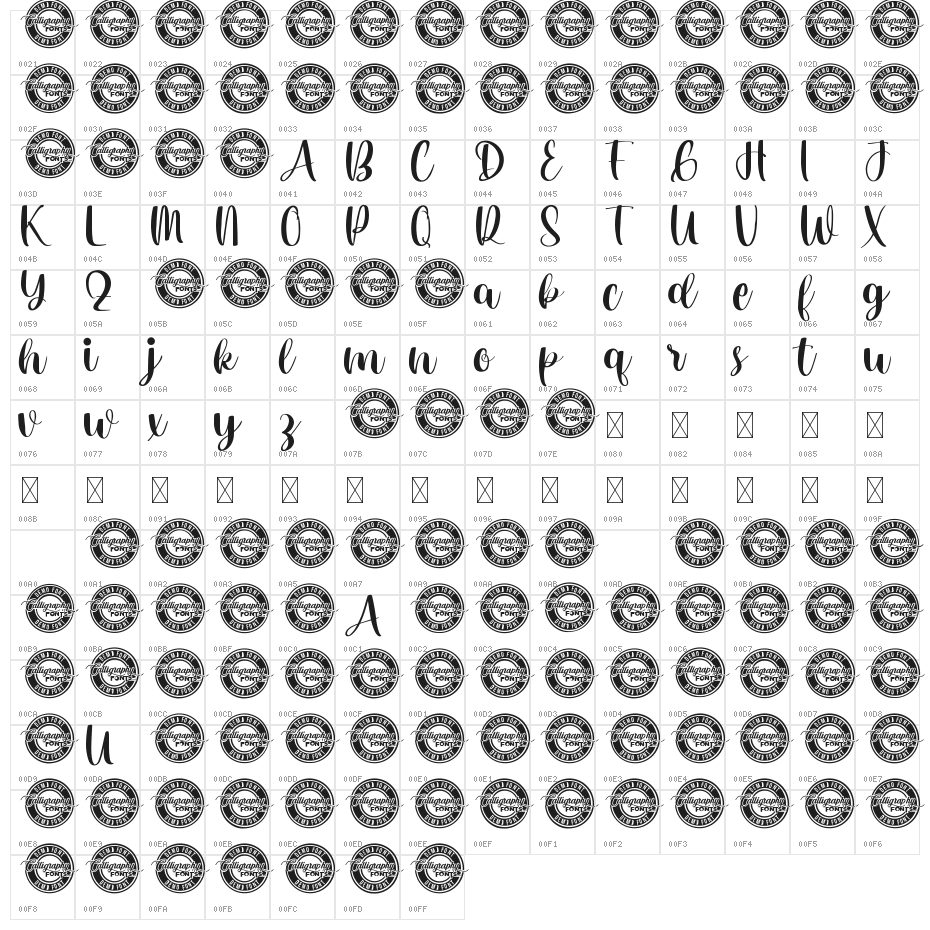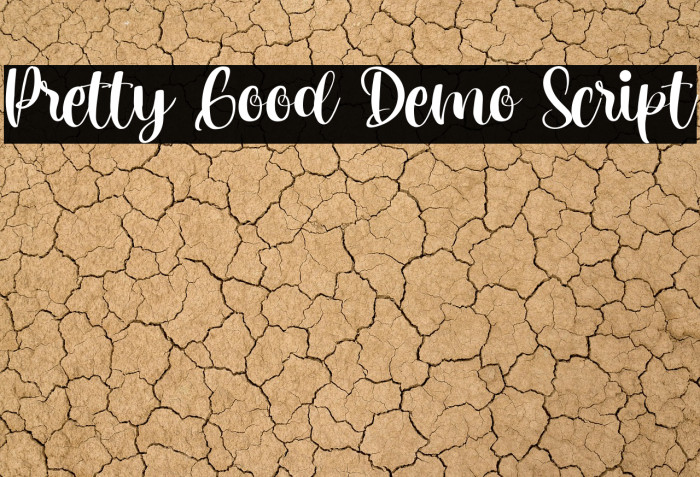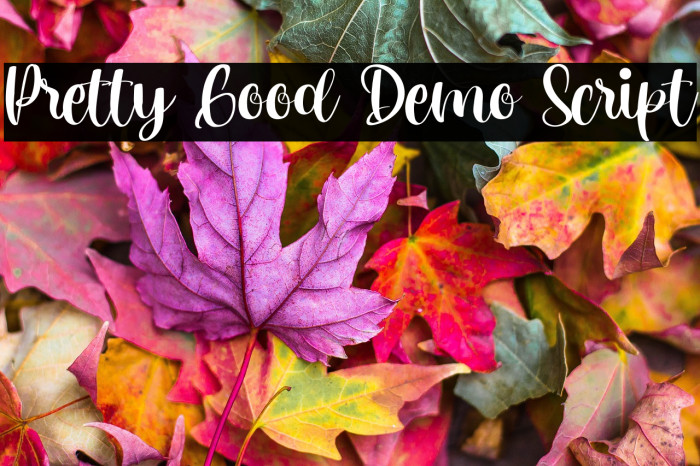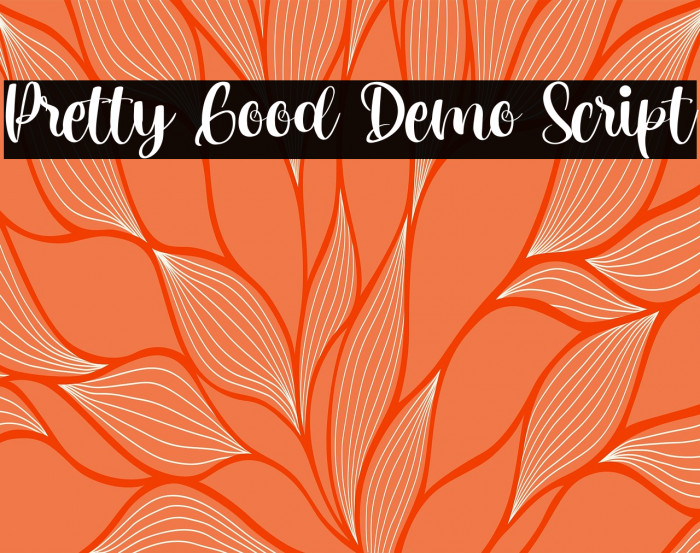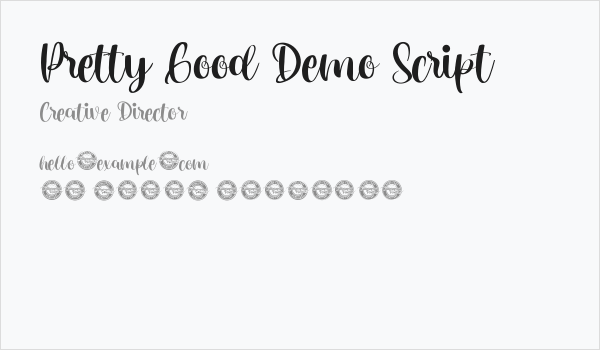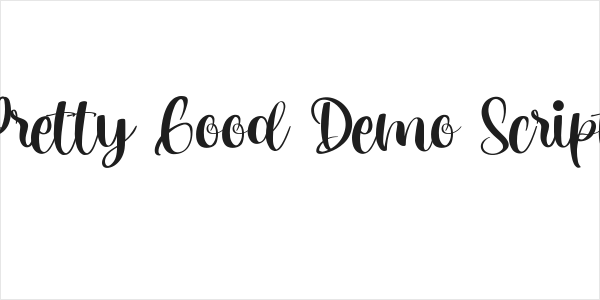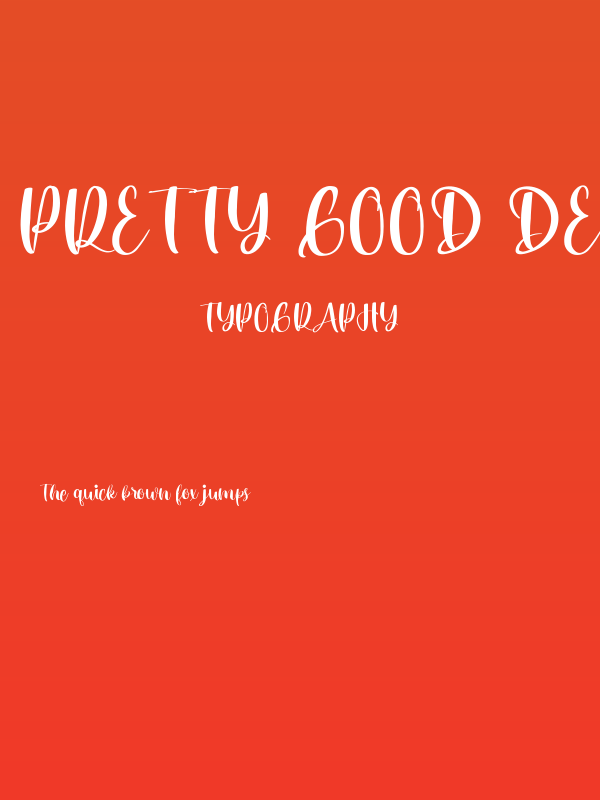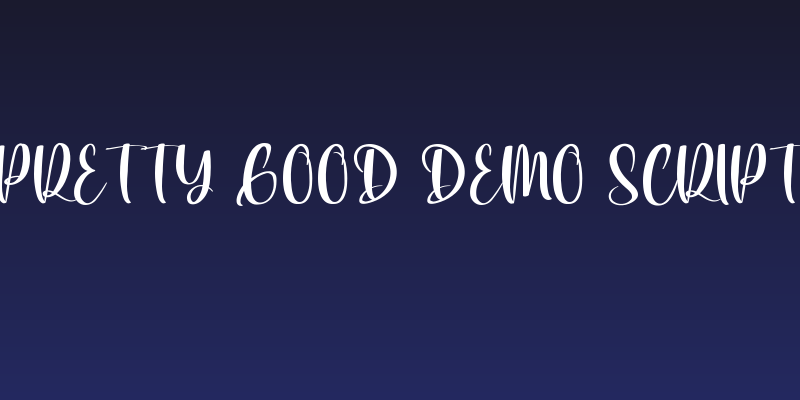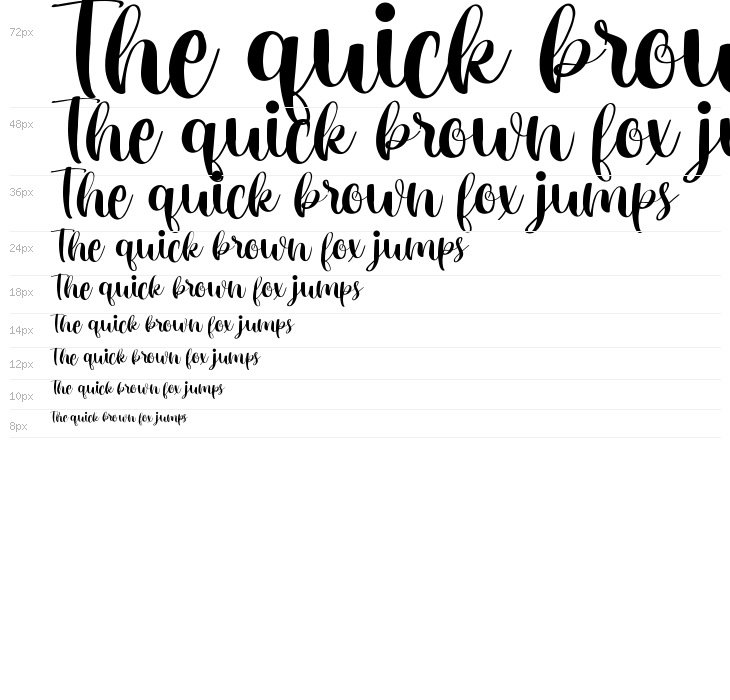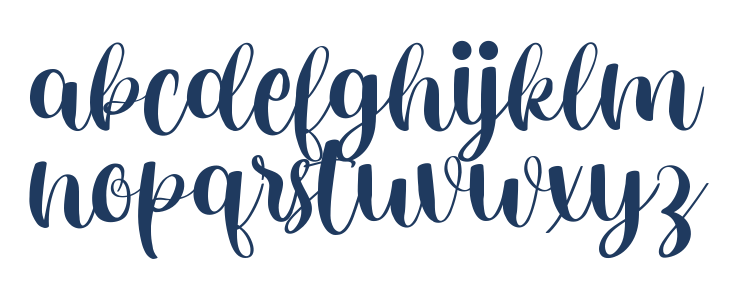
Pretty Good Demo Script Font
Pretty Good Demo Script Description
This font features a flowing, cursive style with elegant loops and swashes, giving it a sophisticated and artistic appearance. The uppercase letters are bold and prominent, while the lowercase letters maintain a consistent fluidity, enhancing the overall aesthetic. The characters are well-balanced, with a harmonious blend of thick and thin strokes that add a dynamic contrast. The font exudes a sense of creativity and flair, making it ideal for projects that require a touch of elegance and personalization.
| Use Case | Logos, Invitations, Decorative text |
| Proposed Projects | Ideal for wedding invitations, greeting cards, branding, and logo design. |